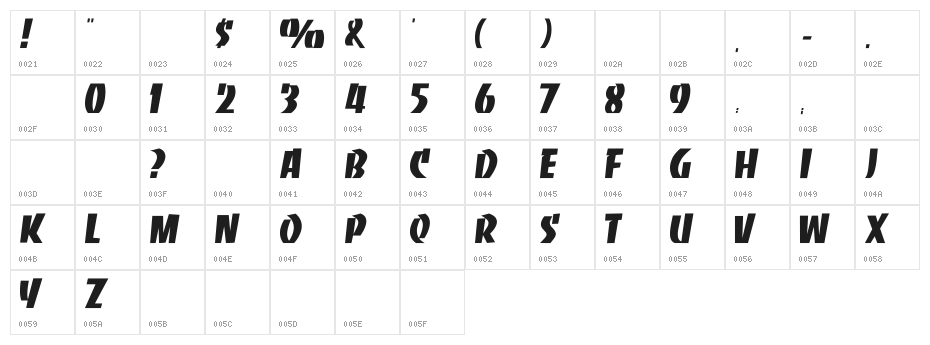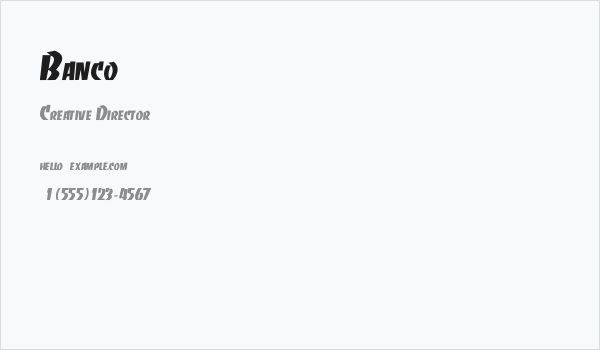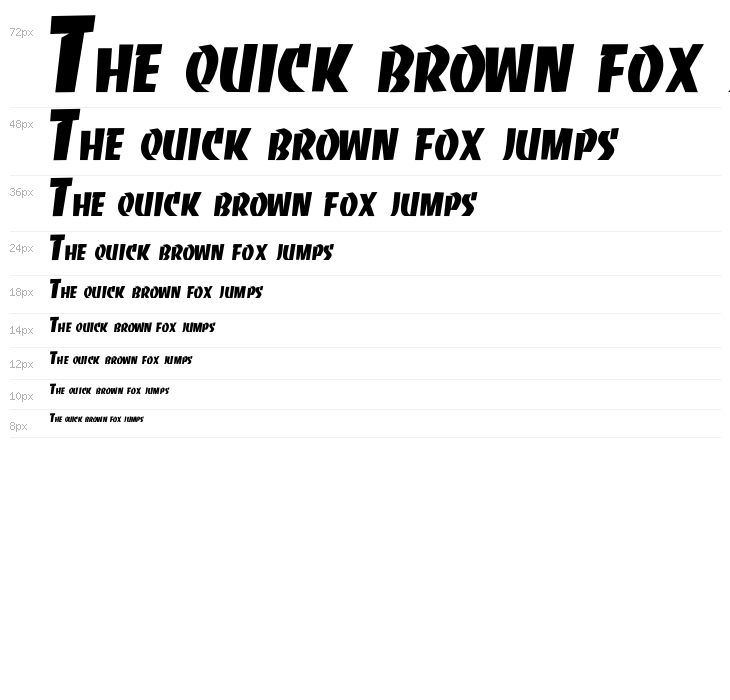
Banco Font
Banco Description
This font features a bold and dynamic style with sharp, angular edges and a strong presence. The characters are slightly slanted, giving a sense of motion and energy. The strokes are thick and consistent, providing a uniform appearance across all characters. The uppercase and lowercase letters maintain a cohesive look, while the numerals and special characters complement the overall design. This font is ideal for making a bold statement and capturing attention.
| Proposed Projects | Ideal for sports branding, dynamic posters, and eye-catching headlines. |